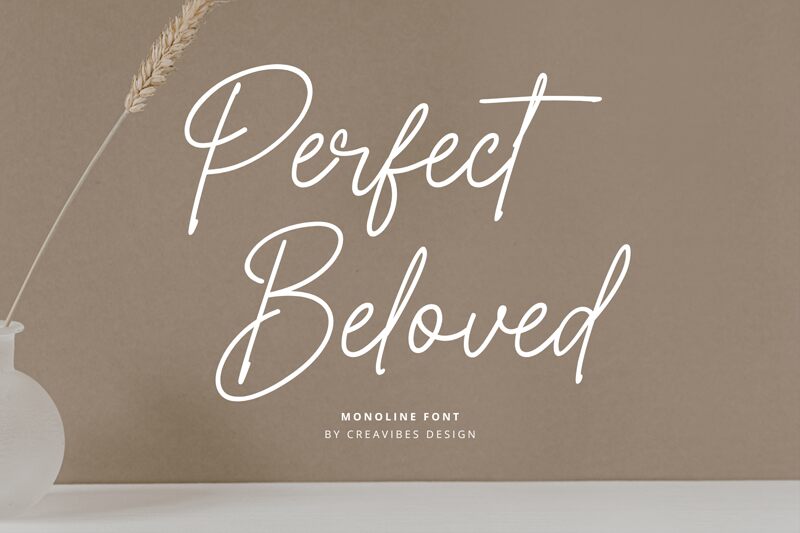
Perfect Beloved, a monoline font designed by Creavibes, brings an elegant touch to any project.
With its handwritten style and extra-light weight, it adds a delicate and refined feel to branding materials. Ideal for invitations and stationery, this font exudes sophistication and charm. Its versatility shines through in wedding designs, social media posts, and advertisements. Perfect Beloved elevates product packaging, giving it a timeless appeal. From labels to photography watermarks, this font captures attention effortlessly.
It is also perfect for special events where elegance is key. Let Perfect Beloved enhance your projects with its graceful and stylish presence.